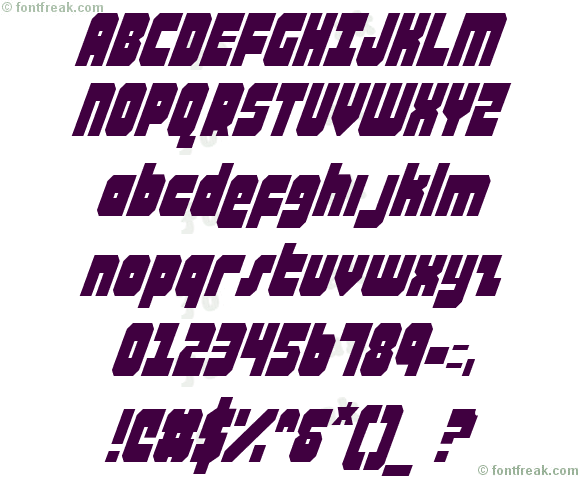
Alpha Taurus CondItalic
About Alpha Taurus CondItalic
Alpha Taurus CondItalic, designed by Daniel Zadorozny in 2007, is a striking display typeface that falls under the category of condensed sans-serif fonts. This font features a bold and dynamic design characterized by its substantial stroke weight and a unique italic slant, which adds a sense of movement and energy. The letters are well-spaced, ensuring legibility while maintaining a bold aesthetic that captures attention. The condensed structure makes it particularly effective for headlines and short texts, while the italic styling introduces an element of flair without compromising readability.
This versatile font excels in a variety of applications. It is particularly suitable for movie posters, where its strong presence can effectively convey excitement and drama. Additionally, it works well in branding materials for tech startups, helping to create a modern and innovative look. Restaurant menus can also benefit from the boldness of Alpha Taurus CondItalic, allowing dish names to stand out and attract diners' attention. Graphic designers will find this font useful for creating eye-catching promotional materials or event invitations, where an impactful statement is essential. Content creators looking to add a unique flair to their projects will appreciate its distinctive style.
Targeting graphic designers, small business owners, and content creators, Alpha Taurus CondItalic offers a fresh alternative to more traditional typefaces. Its free availability under a freeware license makes it accessible for various design projects, allowing users to incorporate this unique font into their work without financial constraints. With its bold, energetic design and versatility across multiple mediums, the Alpha Taurus CondItalic font free download stands out as an essential choice for anyone looking to make a memorable impression in their designs.